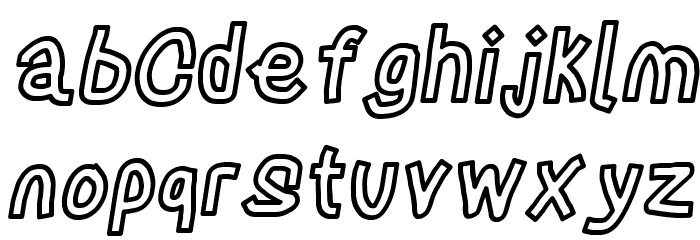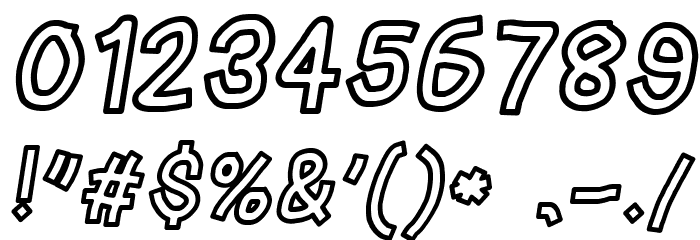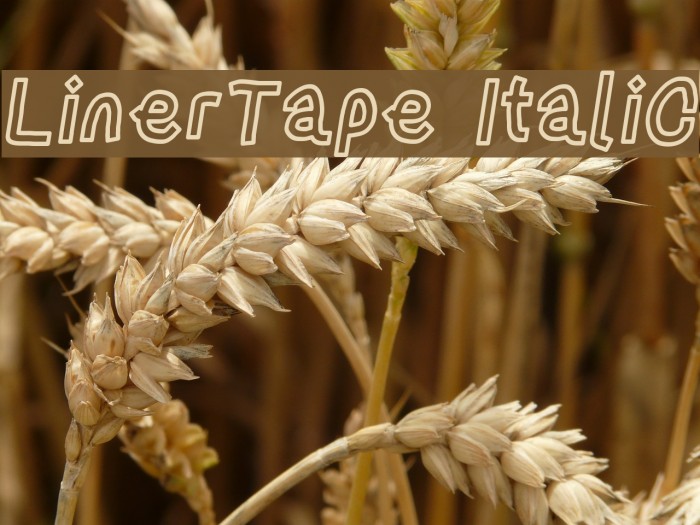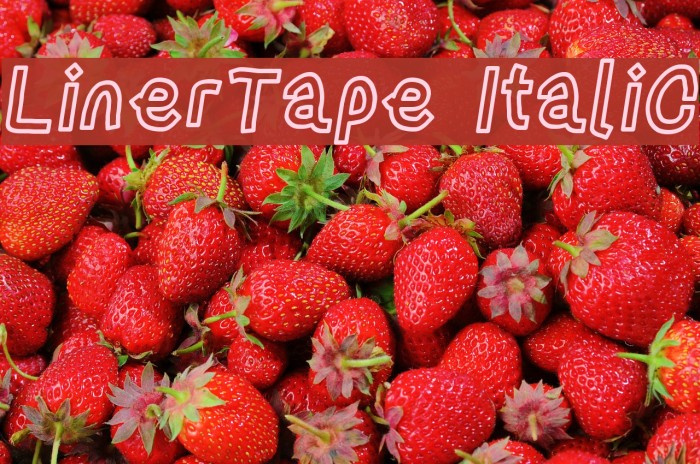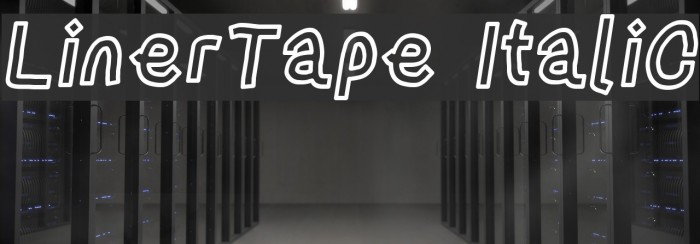
LinerTape Italic Font
This font features a playful and bold outline style, giving each character a distinct and dynamic appearance. The letters are slightly italicized, adding a sense of movement and energy. The uppercase and lowercase letters maintain a consistent design, with rounded edges and a uniform stroke width that enhances readability. The numbers and special characters follow the same stylistic approach, ensuring a cohesive look across all elements. This font's unique outline design makes it stand out, making it suitable for creative and eye-catching projects.
A bold, italicized outline font with a playful and dynamic style.
- Proposed Projects: Ideal for posters, headlines, logos, and any project requiring a bold and creative touch.